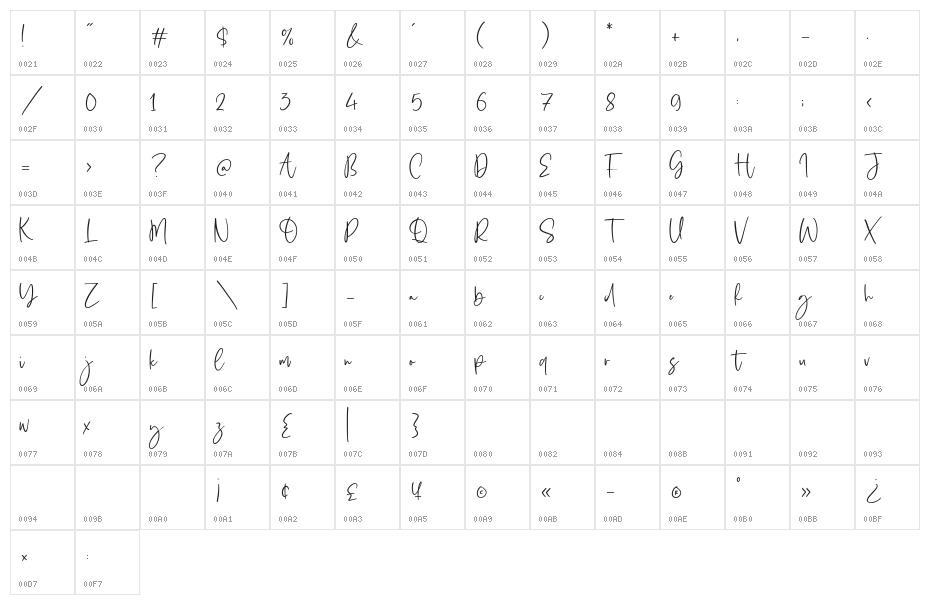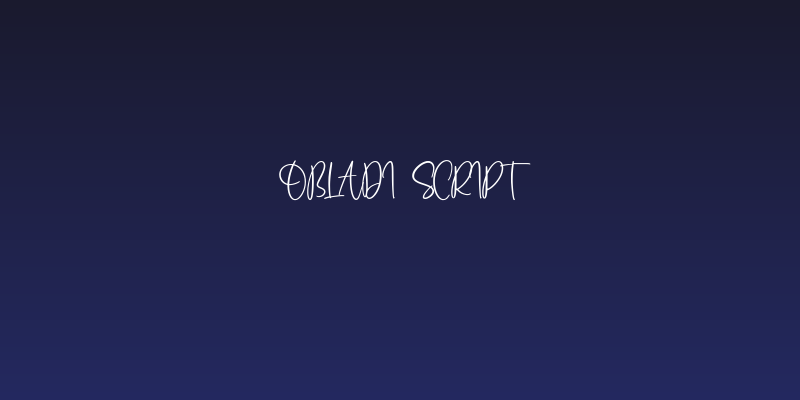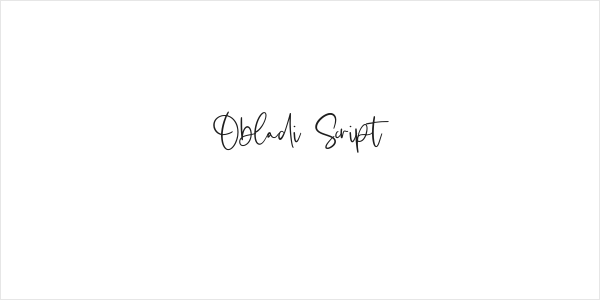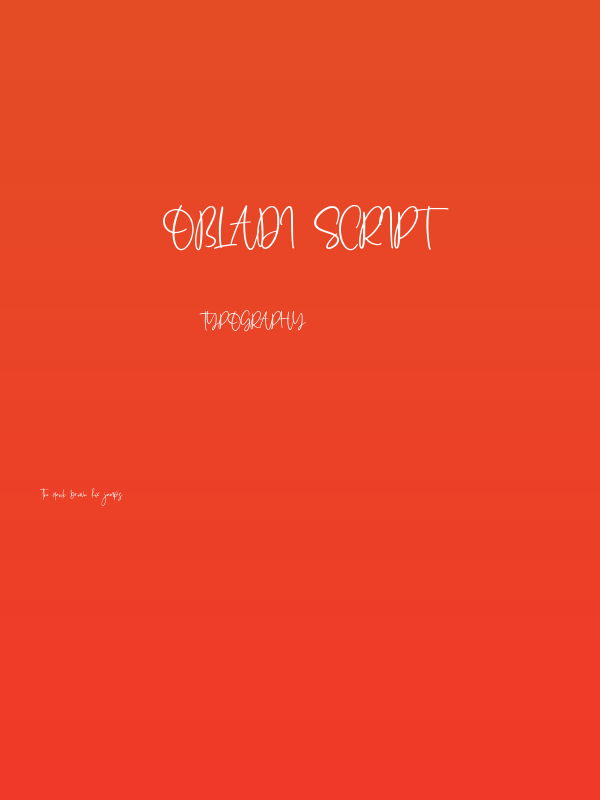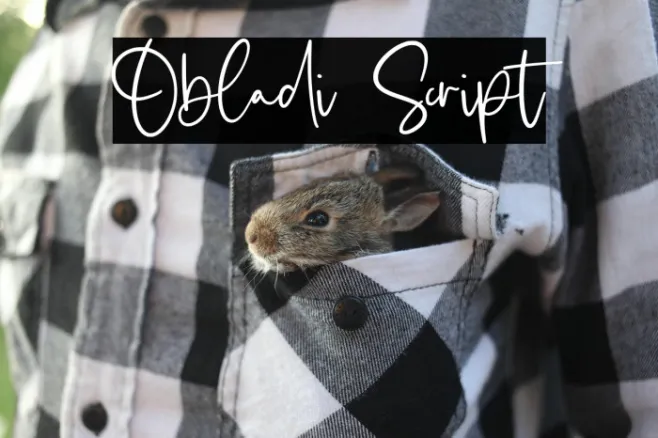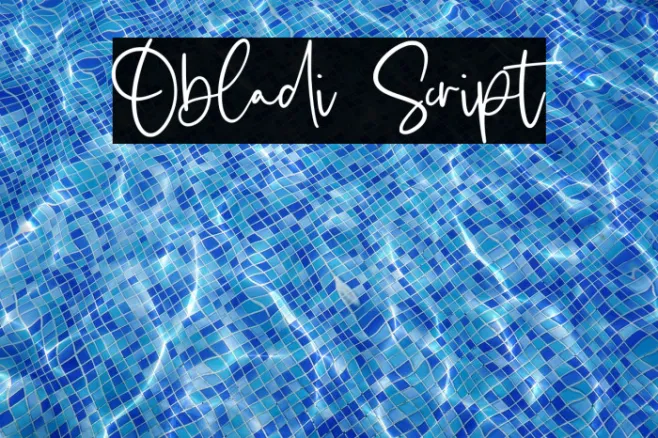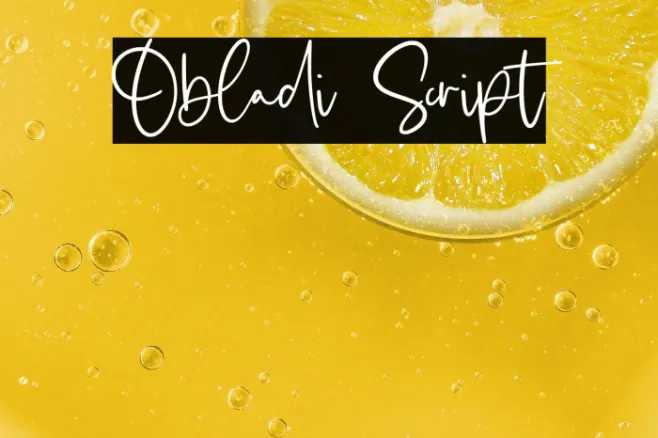
Obladi Script Font
Obladi Script Description
This font exudes a lively and playful character with its handwritten script style. The letters are fluid and connected, giving a sense of motion and personality. The uppercase letters are tall and slightly narrow, while the lowercase letters have a charming, casual flair. The numbers are consistent with the overall style, maintaining the handwritten aesthetic. Special characters are thoughtfully designed to match the font's whimsical nature. This font is perfect for projects that require a personal touch, such as invitations, greeting cards, or creative branding.
| Overall Style | Playful, Casual |
| Proposed Projects | Ideal for invitations, greeting cards, creative branding, and personal projects. |